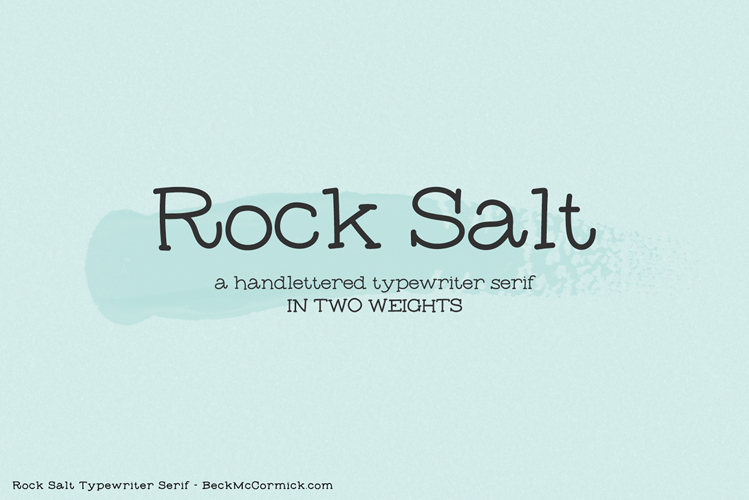
Meet Rock Salt, a typewriter serif in two weights. Rock Salt is a handwritten font with cute farmhouse style!
Rock Salt is best for:
- crafty projects using your Cricut or Silhouette machine, perfect for creating SVGs or your own vinyl labels
- website design + website accents - think travel blogs, fashion blogs, & more
- full uppercase and lowercase characters